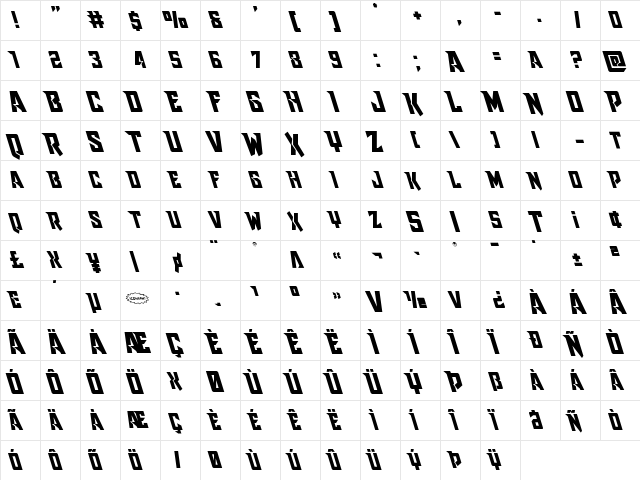
Raider Crusader Leftalic Italic
Design Context for Raider Crusader Leftalic Typeface
Raider Crusader Leftalic is a composed and adaptable typeface that performs quietly and consistently across a wide range of design contexts. The dynamic lean of this cut emphasises speed and emphasis in any layout.
Pro Tip: Use Raider Crusader Leftalic for emphasis, pull quotes, and subheadings where its slanted energy can add rhythm to the layout.